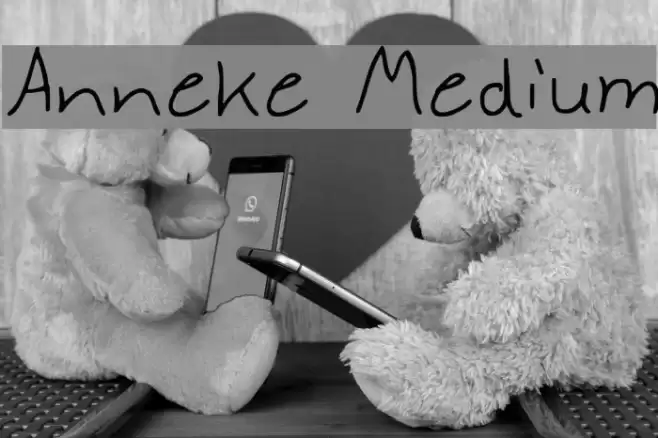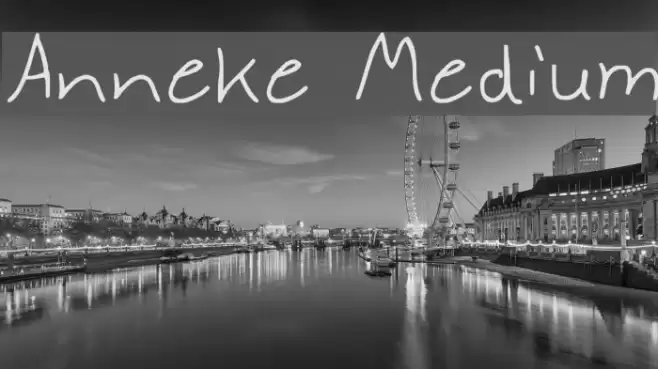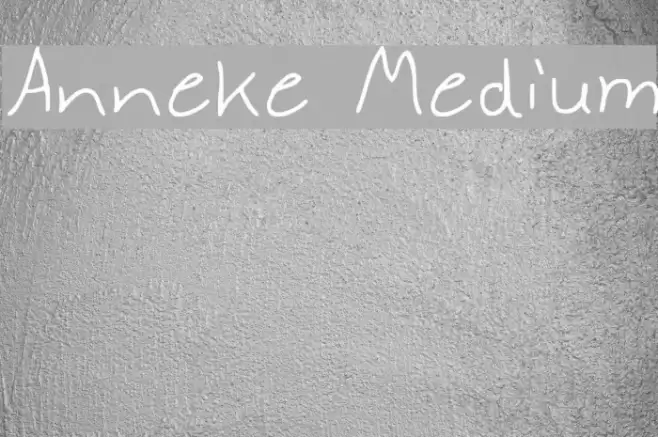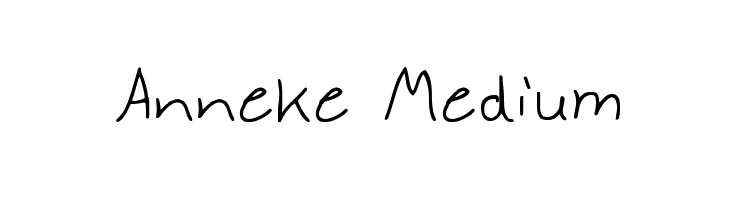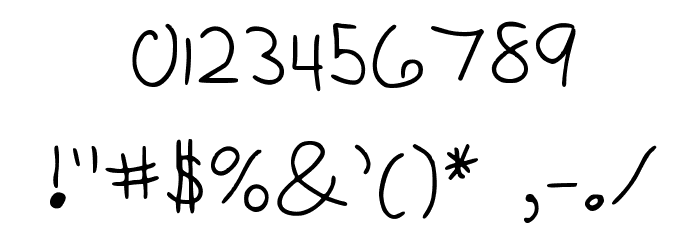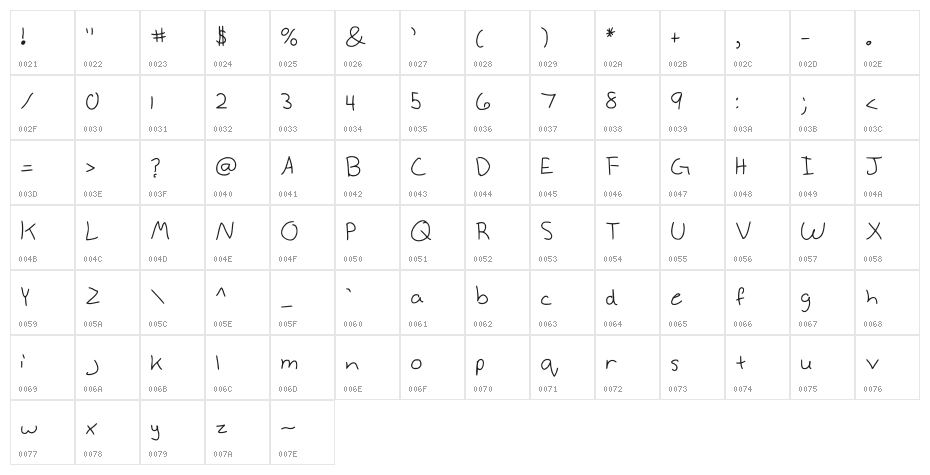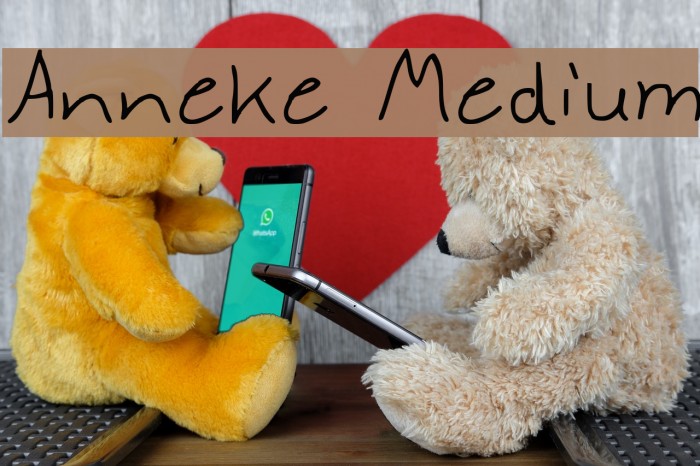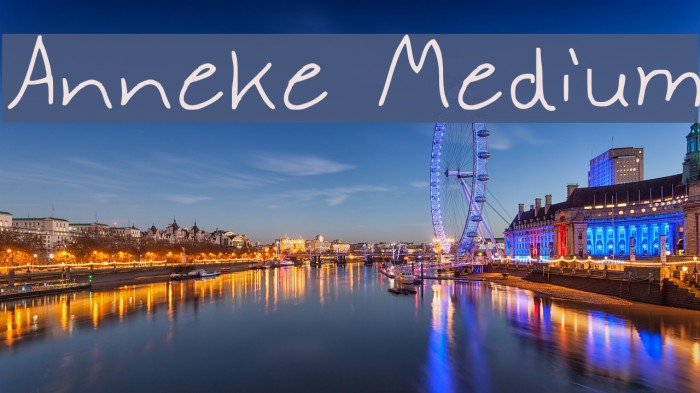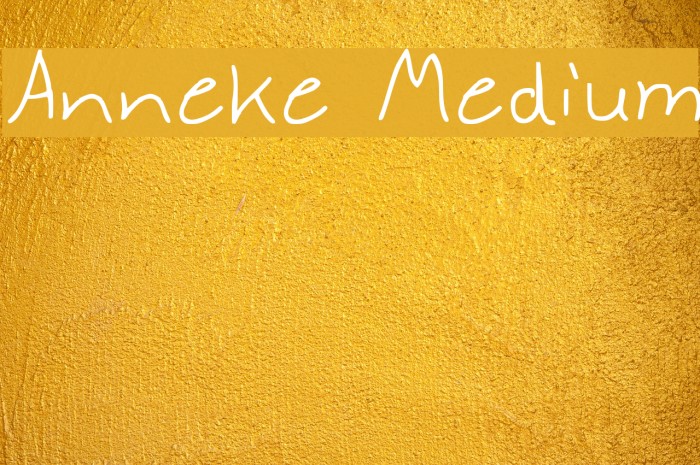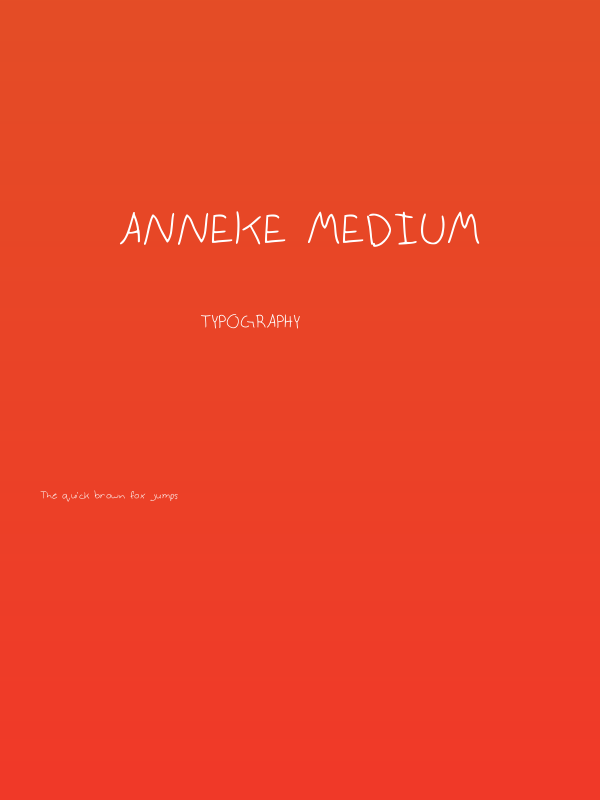
Anneke Medium Font
Anneke Medium Description
This font features a playful and casual handwritten style, characterized by its smooth, flowing lines and slightly irregular shapes. The uppercase letters maintain a consistent height, while the lowercase letters exhibit a charming variability in size and form. The numerals are clear and legible, complementing the overall informal aesthetic. Special characters are well-integrated, maintaining the font's cohesive look. The strokes are uniform in thickness, contributing to a balanced and approachable appearance. This font is ideal for projects that require a personal touch, offering a friendly and inviting feel.
A playful, casual handwritten font with smooth, flowing lines and uniform stroke thickness from Handwritten fonts.
- Proposed Projects: Ideal for greeting cards, invitations, personal blogs, and children's books.
- Overall Style: Casual
- Use Case: Headlines, Informal text, Personal projects